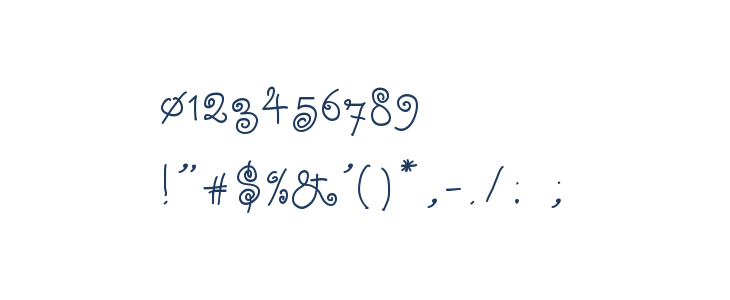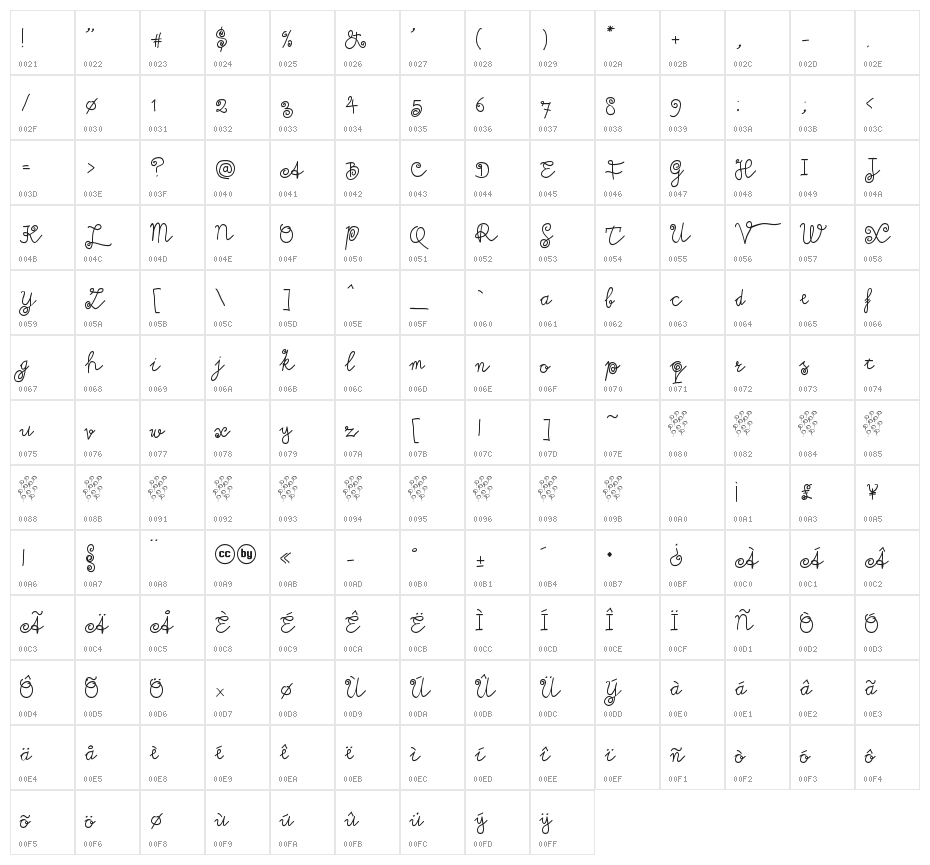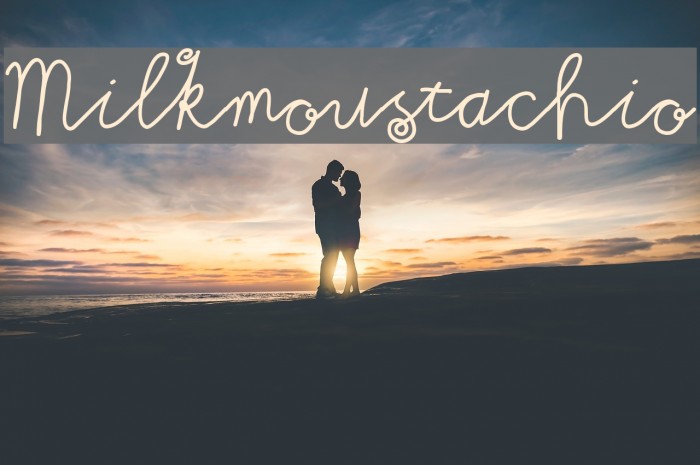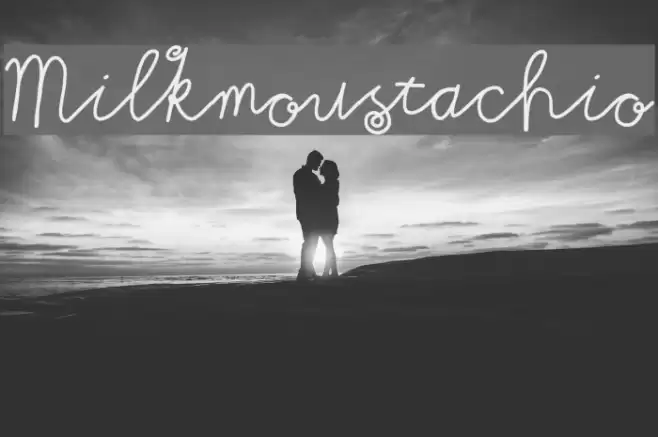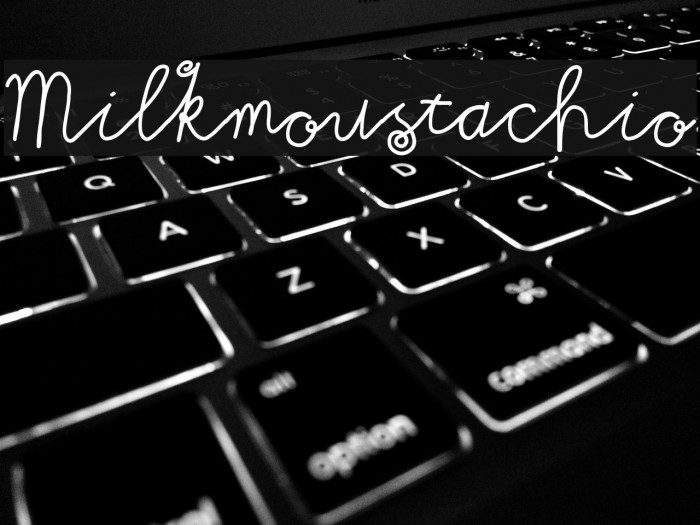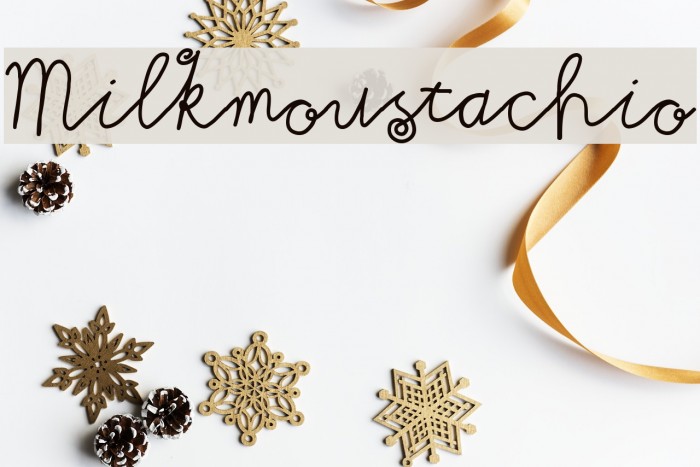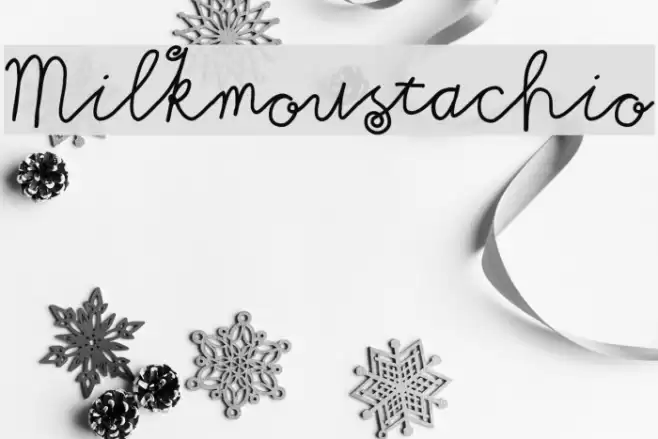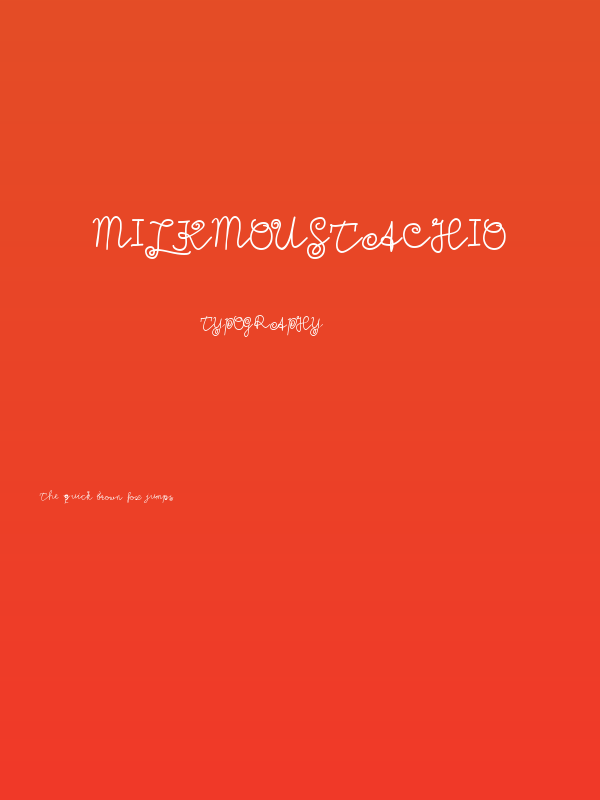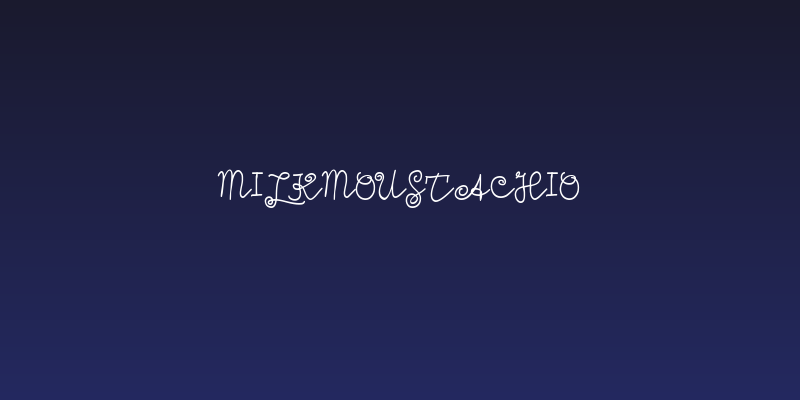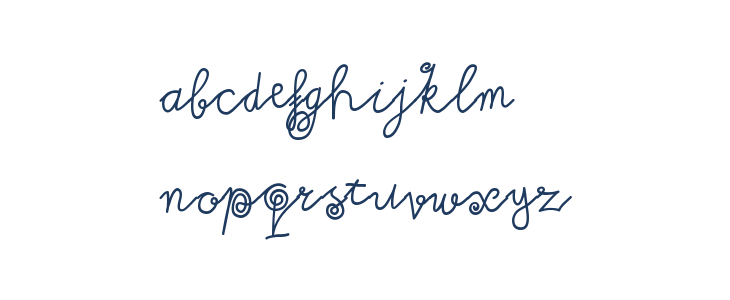
Milkmoustachio Font
Milkmoustachio Description
This font features a whimsical and playful design, characterized by its curly and looping strokes. The uppercase letters are bold and ornate, with each character displaying unique swirls and embellishments that add a decorative flair. The lowercase letters maintain a similar style, though they are slightly more subdued, offering a balance between readability and artistic expression. Numbers and special characters follow the same playful theme, with spirals and curls that make them stand out. This font is perfect for projects that require a touch of fun and creativity, such as children's books, invitations, or playful branding.
| Overall Style | Playful, Whimsical, Decorative |
| Proposed Projects | Children's books, invitations, playful branding, creative posters. |